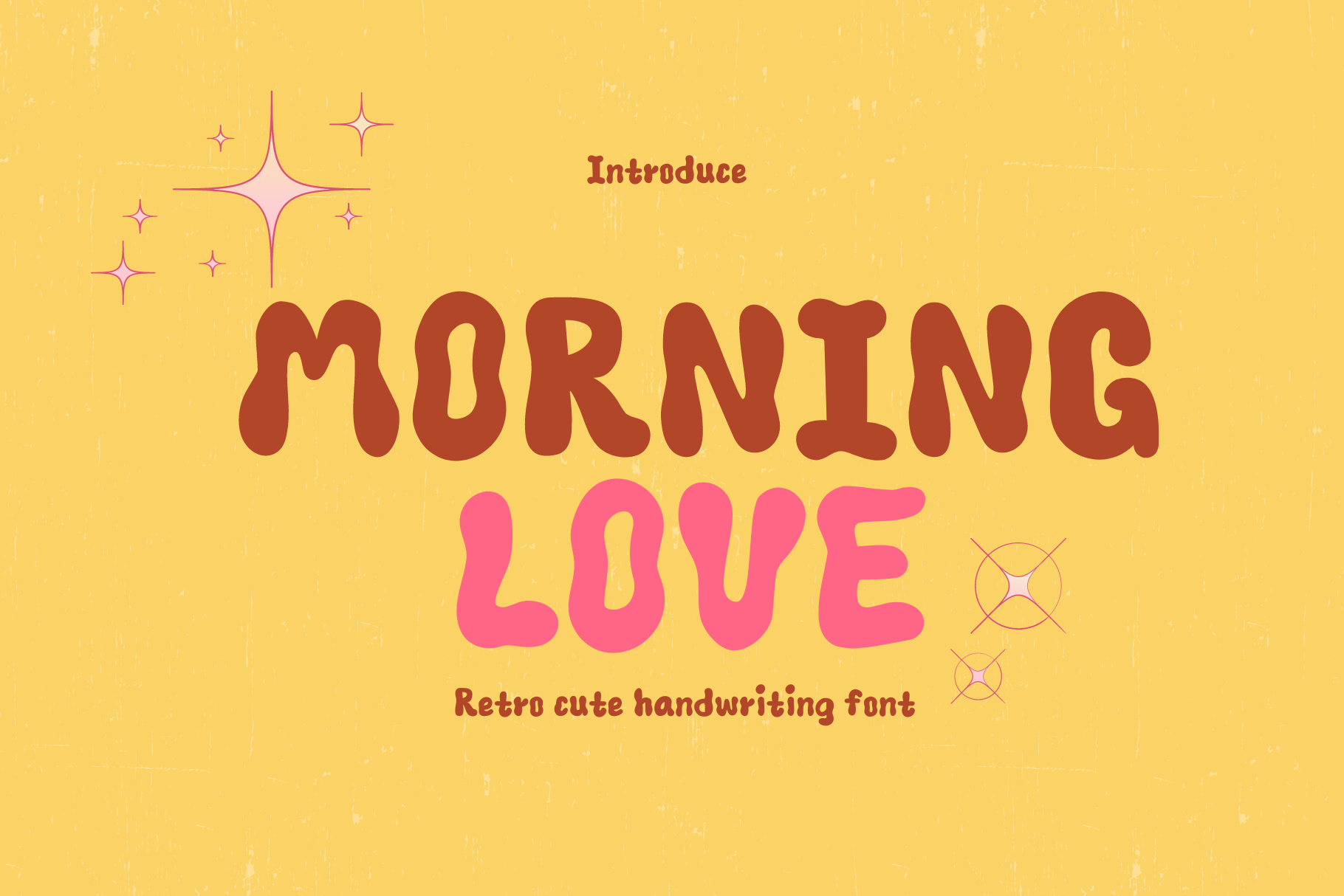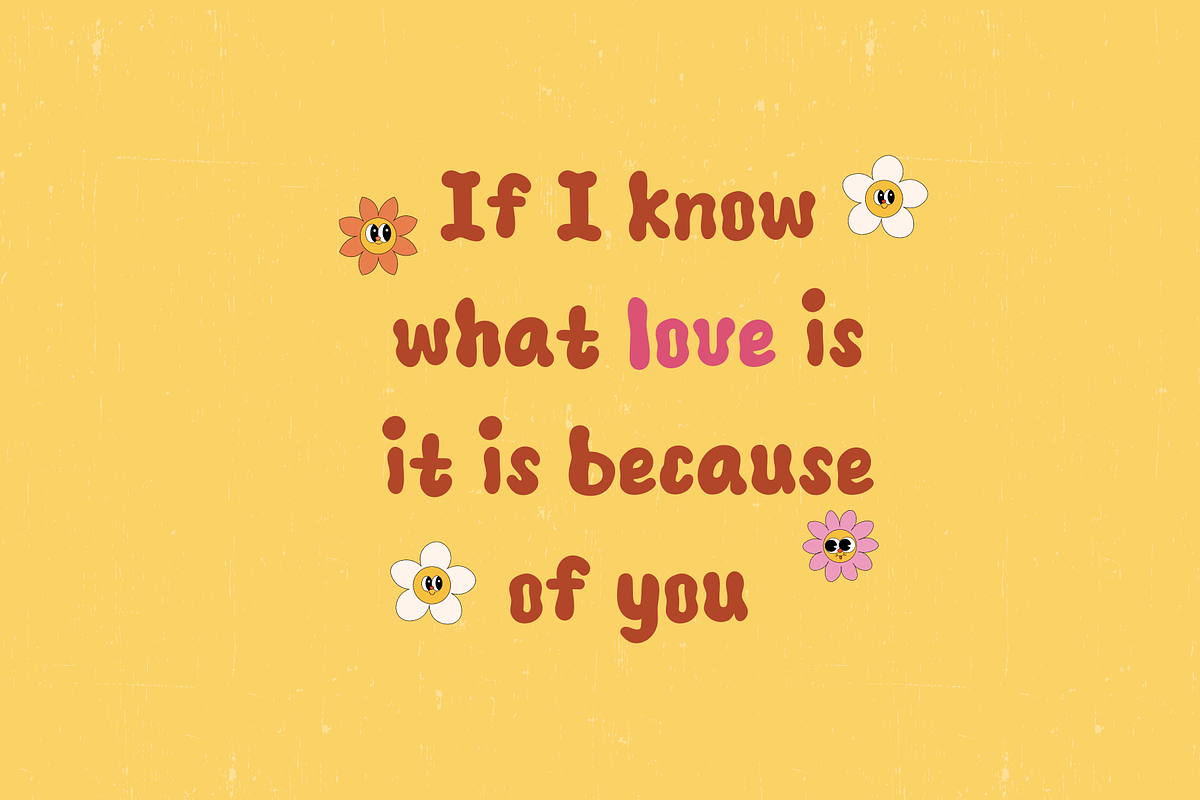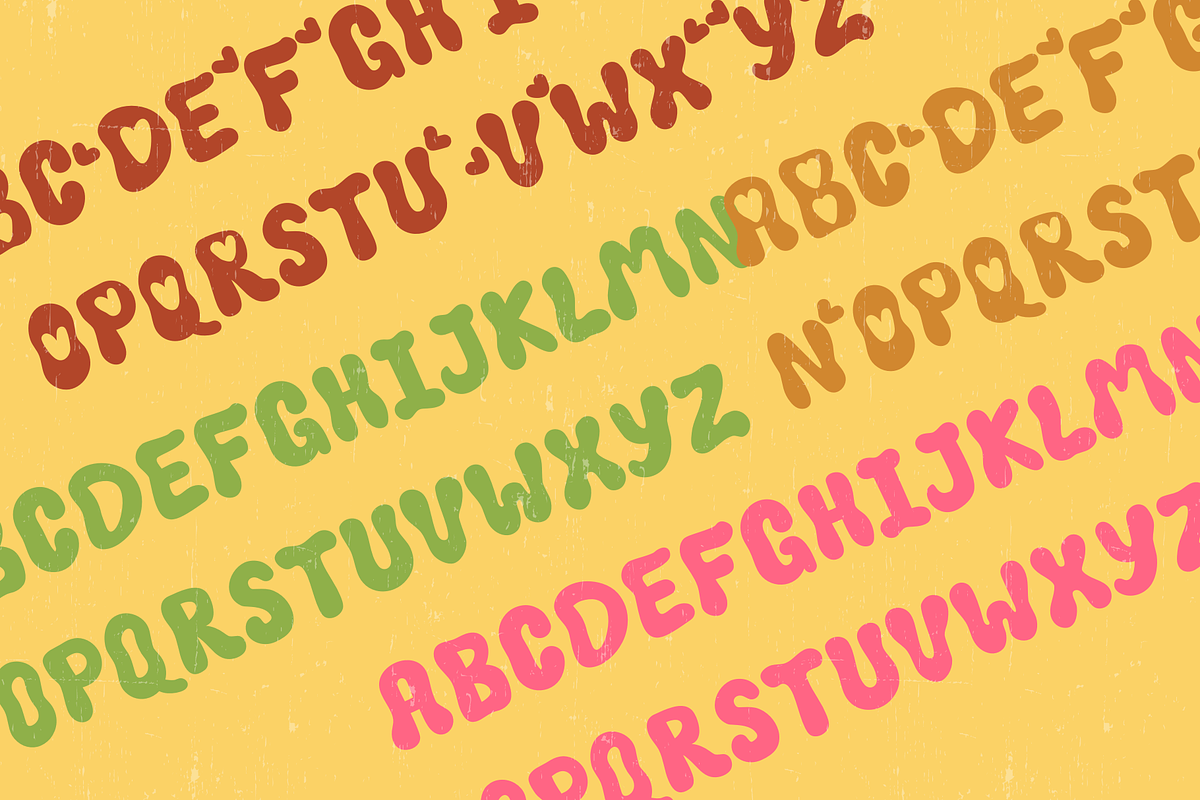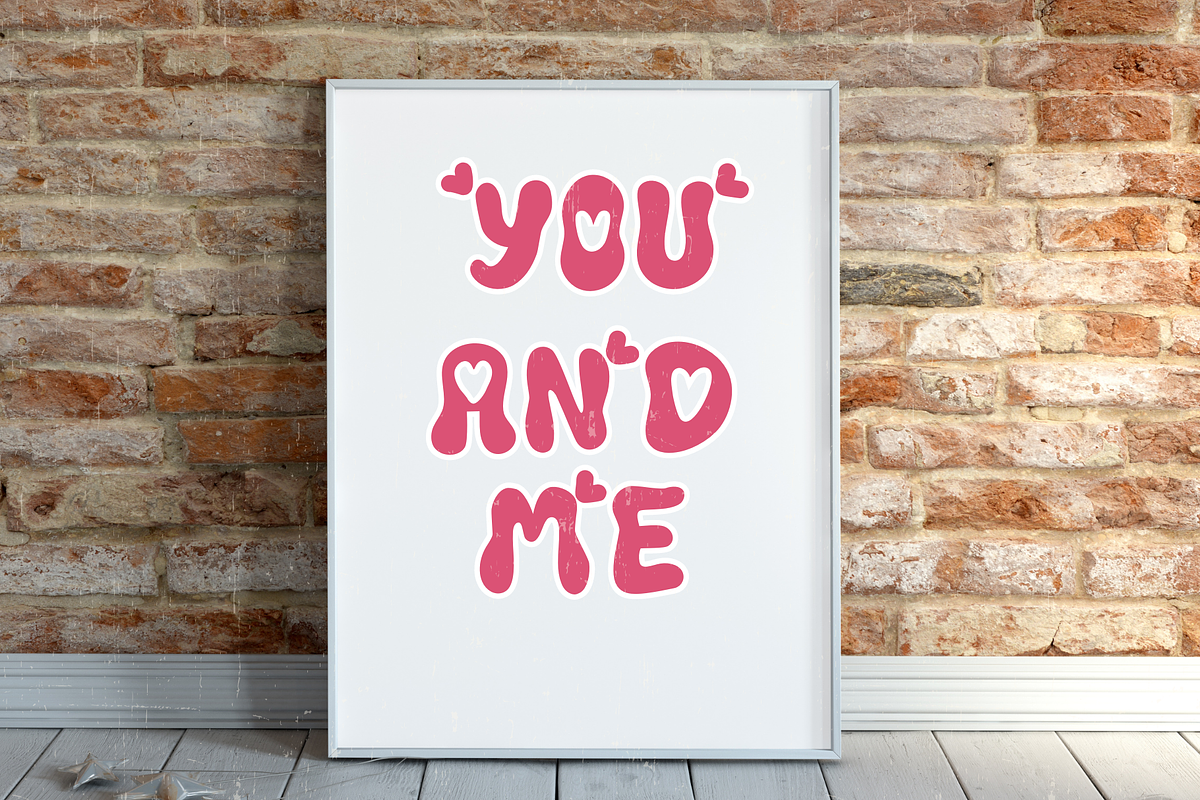
Morning love retro cute font
Morning love retro cute font. This decorative font has been designed to feel modern, stylish, and contemporary, making your design work stand out. It can be applied to various design projects, whether it's clothing, bags, books, and more, to showcase your unique personality. Enjoy the design process!